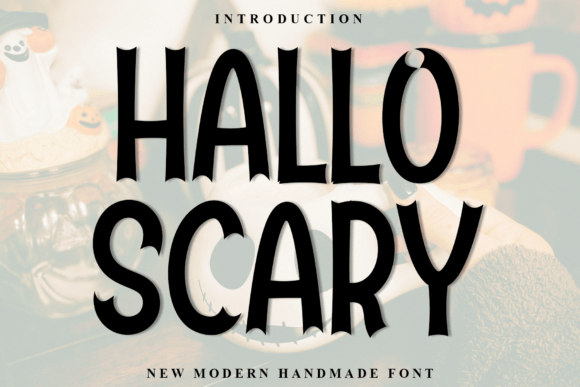
Hallo Scary Font: The Ultimate Display Font for Creative Masterpieces
Hallo Scary is an incredibly unique display font that has been masterfully designed to become a true favorite among designers and crafters. With its distinctive style, this font has the potential to bring each of your creative ideas to the highest level, making it a must-have for anyone looking to add a touch of personality to their projects.
What Makes Hallo Scary Font So Special?
Hallo Scary font is not just another ordinary font. Its unique design and exceptional style set it apart from other fonts, making it perfect for creative projects that require a bold and eye-catching look. Whether you’re working on a logo, a poster, or a social media graphic, Hallo Scary font is sure to make your design stand out.
Key Features of Hallo Scary Font
- Unique Design: Hallo Scary font boasts a one-of-a-kind design that is sure to grab attention.
- Highly Versatile: This font can be used for a wide range of projects, from logos and posters to social media graphics and more.
- Easily Readable: Despite its bold and edgy look, Hallo Scary font is surprisingly easy to read, making it perfect for headlines and titles.
- Pair it with a neutral font: Pair Hallo Scary font with a neutral font to create a striking contrast that will make your design stand out.
- Use it for headlines: Hallo Scary font is perfect for headlines and titles, where its bold and eye-catching style can really shine.
- Experiment with colors: Don’t be afraid to experiment with different colors and textures to really make your design pop.
Why Designers and Crafters Love Hallo Scary Font
Hallo Scary font has quickly become a favorite among designers and crafters, and for good reason. Its unique style and versatility make it perfect for a wide range of creative projects. Here are just a few reasons why designers and crafters love Hallo Scary font:
- It’s attention-grabbing: Hallo Scary font is sure to grab attention and make your design stand out.
- It’s highly versatile: This font can be used for a wide range of projects, from logos and posters to social media graphics and more.
In conclusion, Hallo Scary font is an incredibly unique and versatile display font that is sure to become a true favorite among designers and crafters. With its bold and eye-catching style, this font has the potential to bring each of your creative ideas to the highest level. Whether you’re working on a logo, a poster, or a social media graphic, Hallo Scary font is the perfect choice.